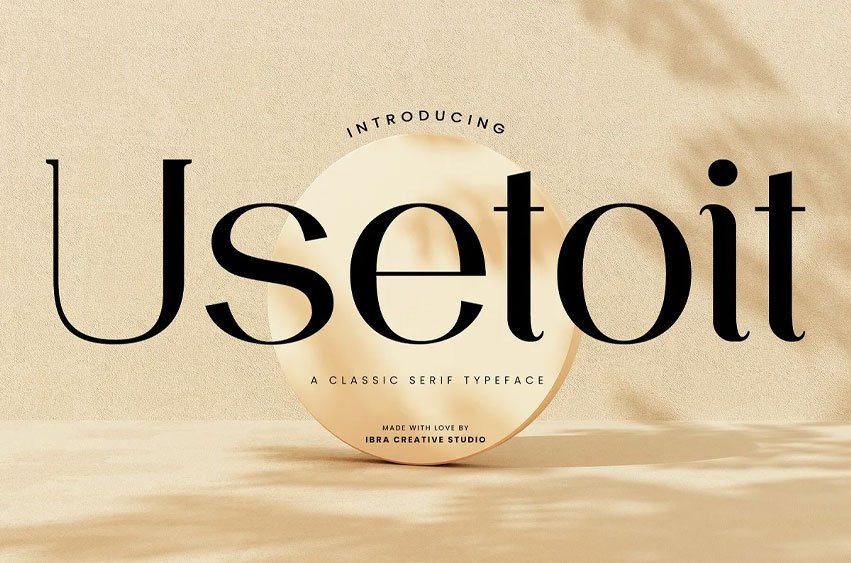
Usetoit Font is a latin style font, whose characters are all very distinctive along. The strokes are composed of both fine lines and thick ones, which project a combination of the dignified and modest tempered by classicism
The visual rhythm of usetoit is one that carries no break in between, and it is thus usable for literature both formal as well as a modern form of tradition like. It’s an excellent choice for projects that add just a little bit of stylish restraint, elegance and understatement in particular.